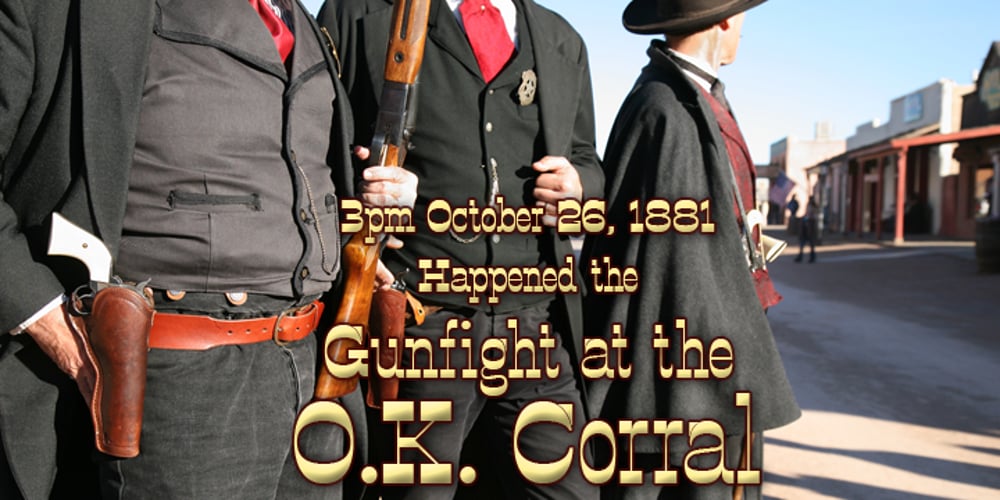
OK Corral Font Family was designed by Michael Hagemann and published by FontMesa. OK Corral contains 2 styles and family package options. OK Corral is a revival of a very old Italian font that you may have seen in the past under the original name of Italian Print. The Lined version of this font has never been known to have a lower case set of letters until now.